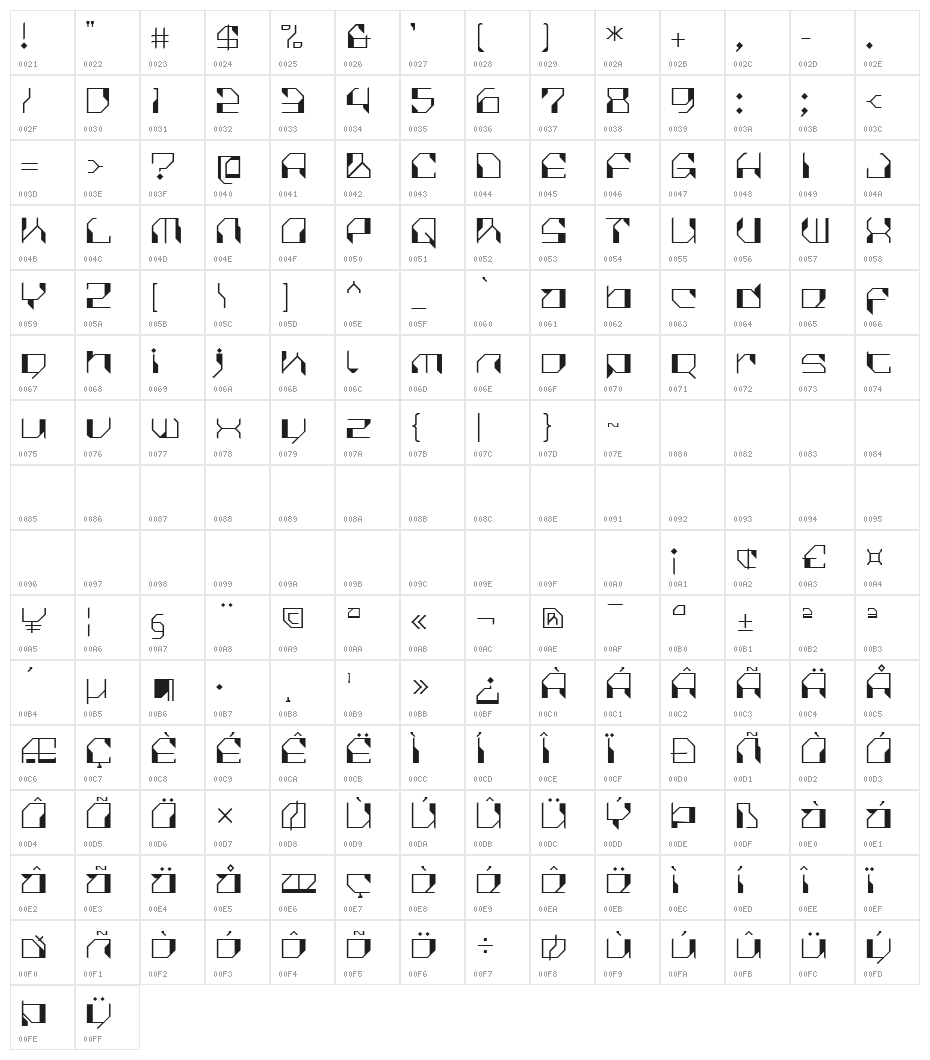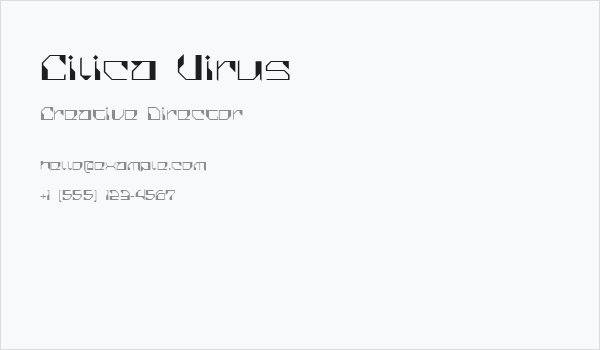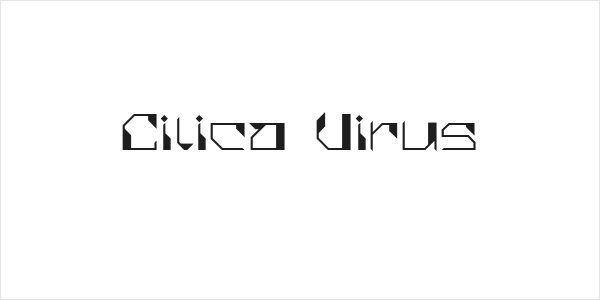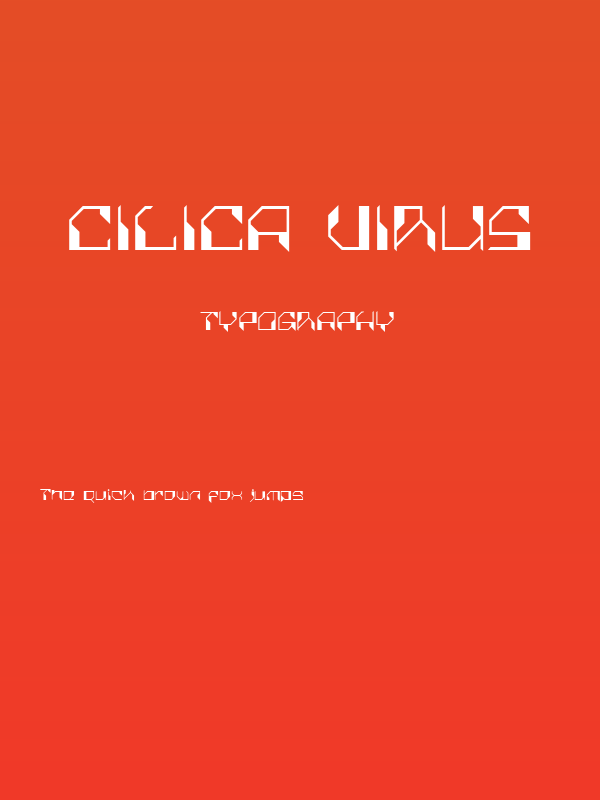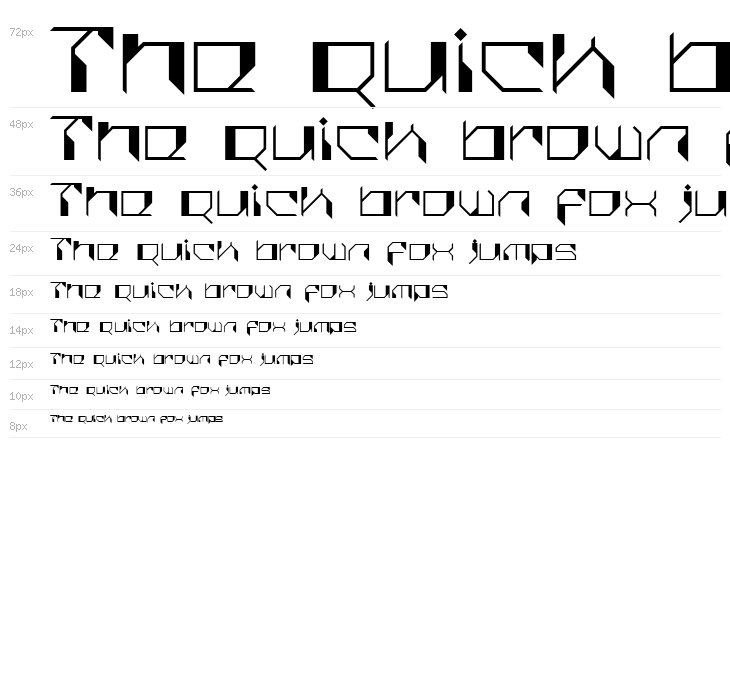
Cilica Virus Font
Cilica Virus Description
This font exhibits a futuristic and geometric design, characterized by sharp angles and a bold presence. The characters are constructed with a series of straight lines and angular cuts, giving them a modern and edgy appearance. The uppercase and lowercase letters maintain a consistent style, with the lowercase being slightly more compact. Numbers and special characters follow the same angular theme, ensuring uniformity across all glyphs. The font's unique style makes it stand out, ideal for projects that require a modern and innovative touch.
| Proposed Projects | Ideal for sci-fi themed projects, tech branding, video game titles, and modern posters. |